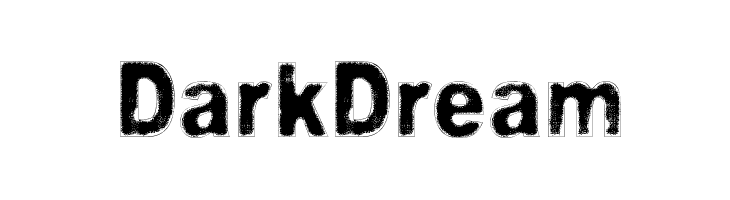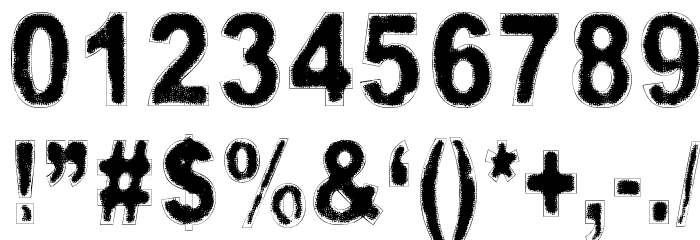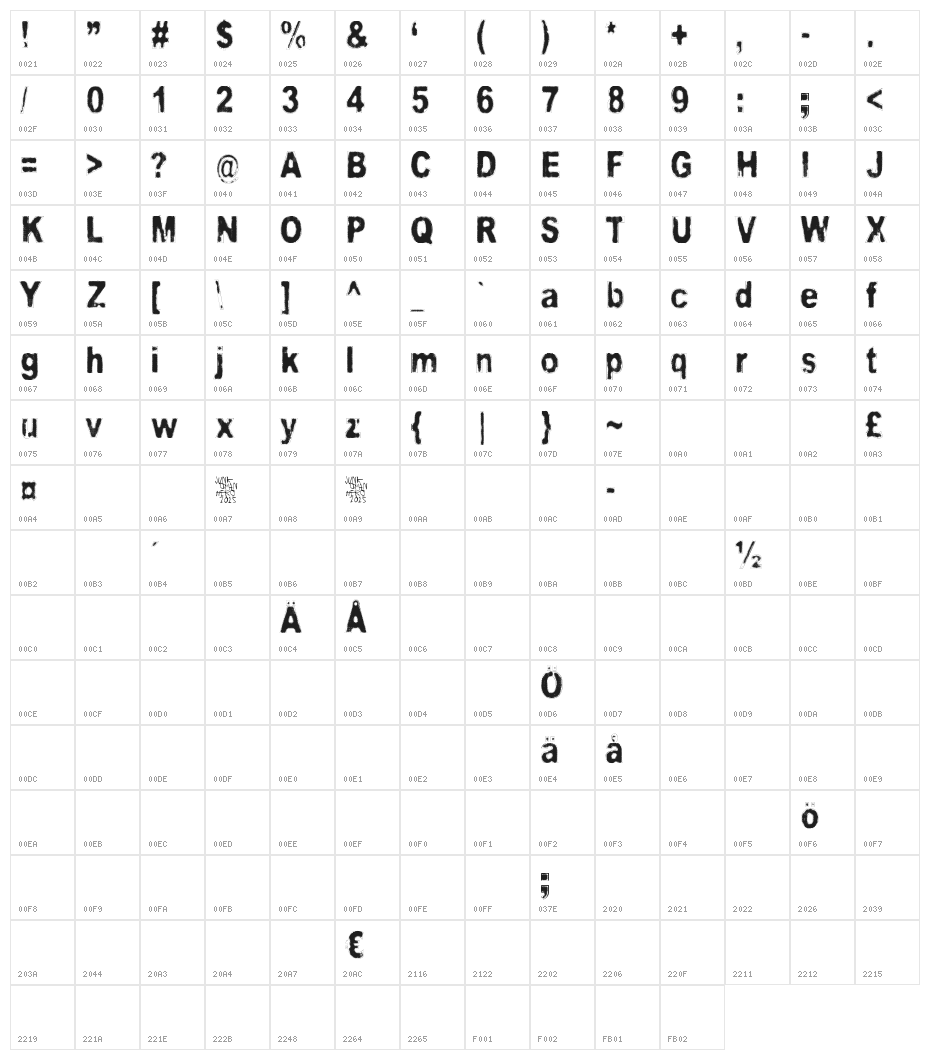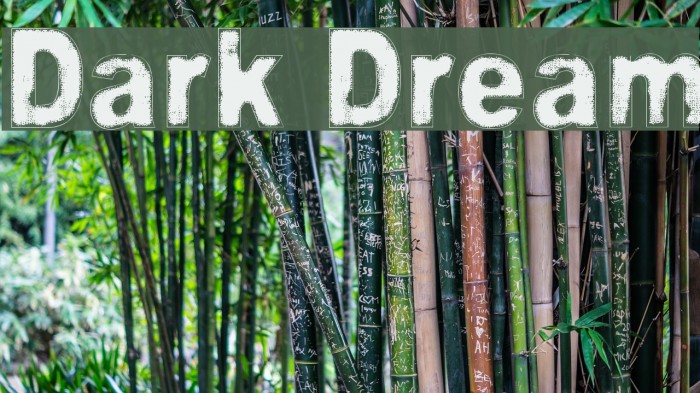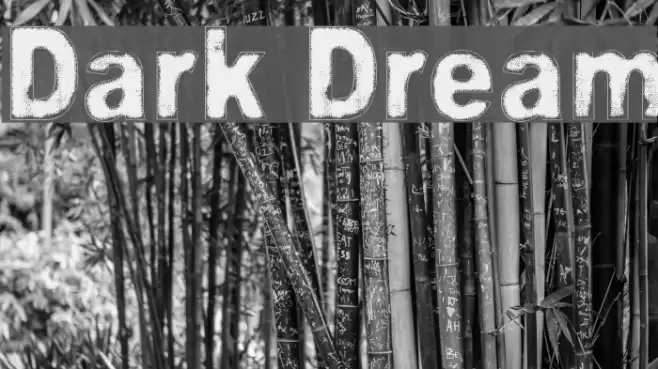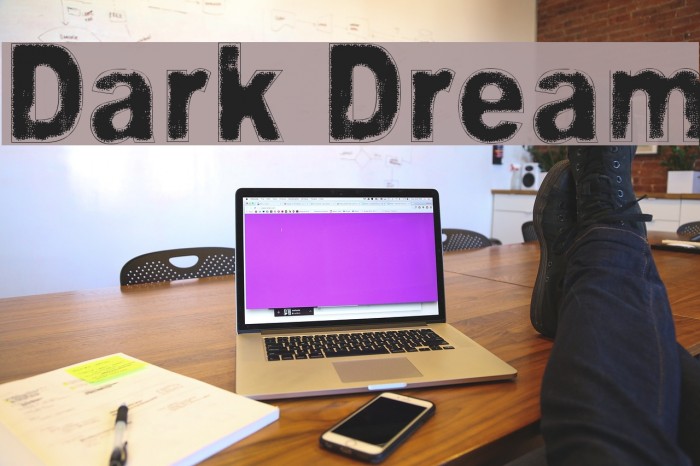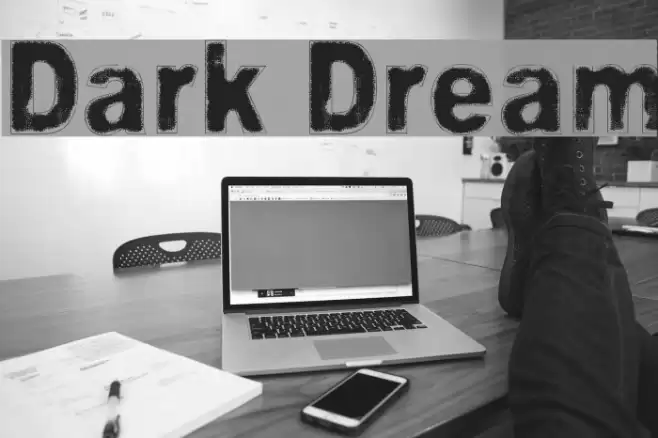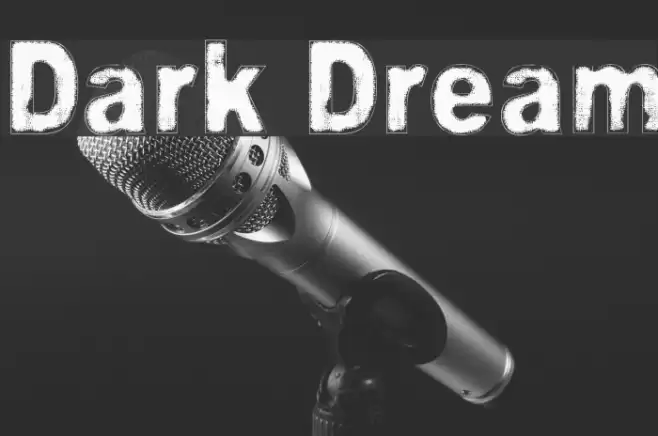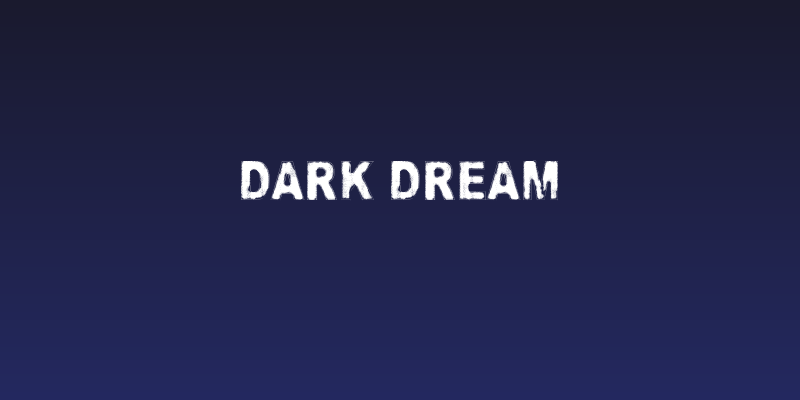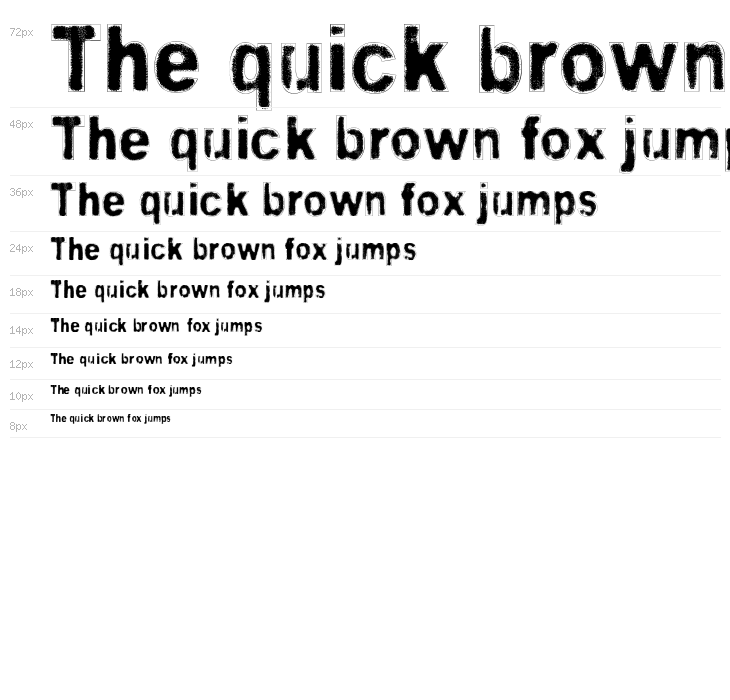
Dark Dream Font
Dark Dream Description
This font features a bold and distressed style, giving it a rugged and edgy appearance. The characters are heavily textured, with a worn-out look that suggests a vintage or grunge aesthetic. The uppercase and lowercase letters maintain a consistent weight, while the numbers and special characters follow the same distressed pattern. The font's boldness makes it stand out, while the rough edges and irregularities add character and uniqueness. This style is perfect for projects that require a strong, impactful visual presence with a touch of nostalgia or rebelliousness.
| Proposed Projects | Ideal for album covers, posters, branding for edgy products, or any design needing a strong, vintage look. |